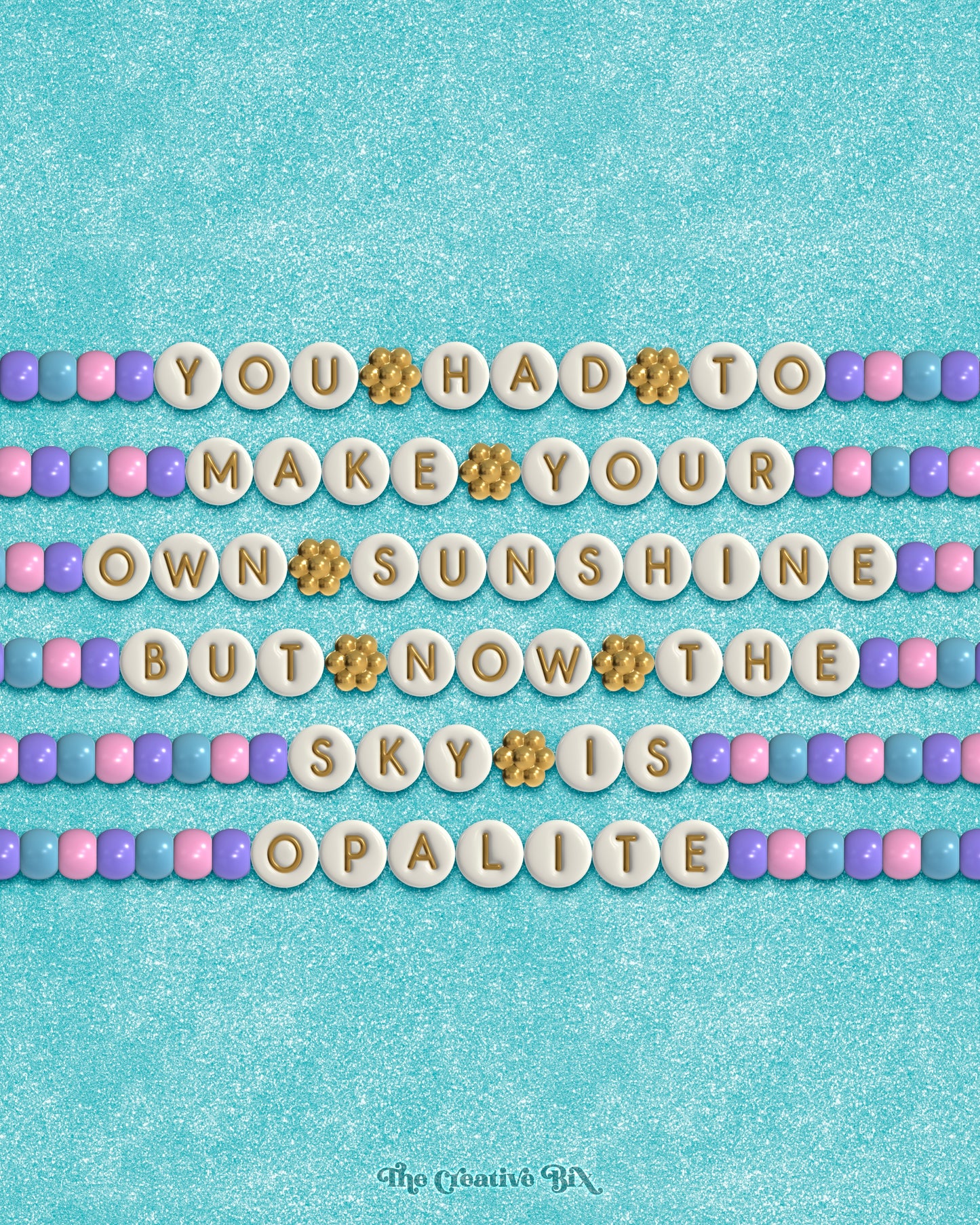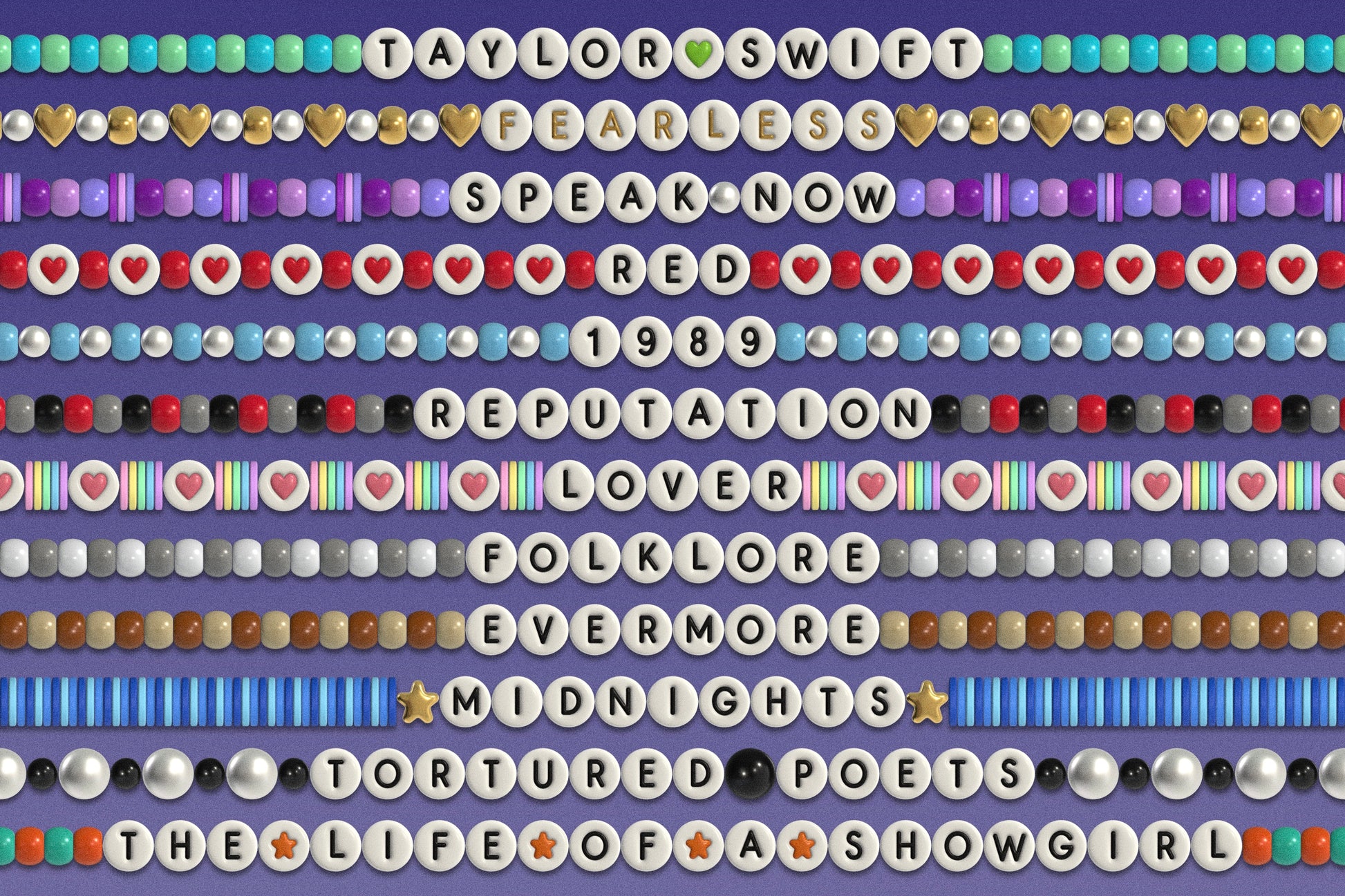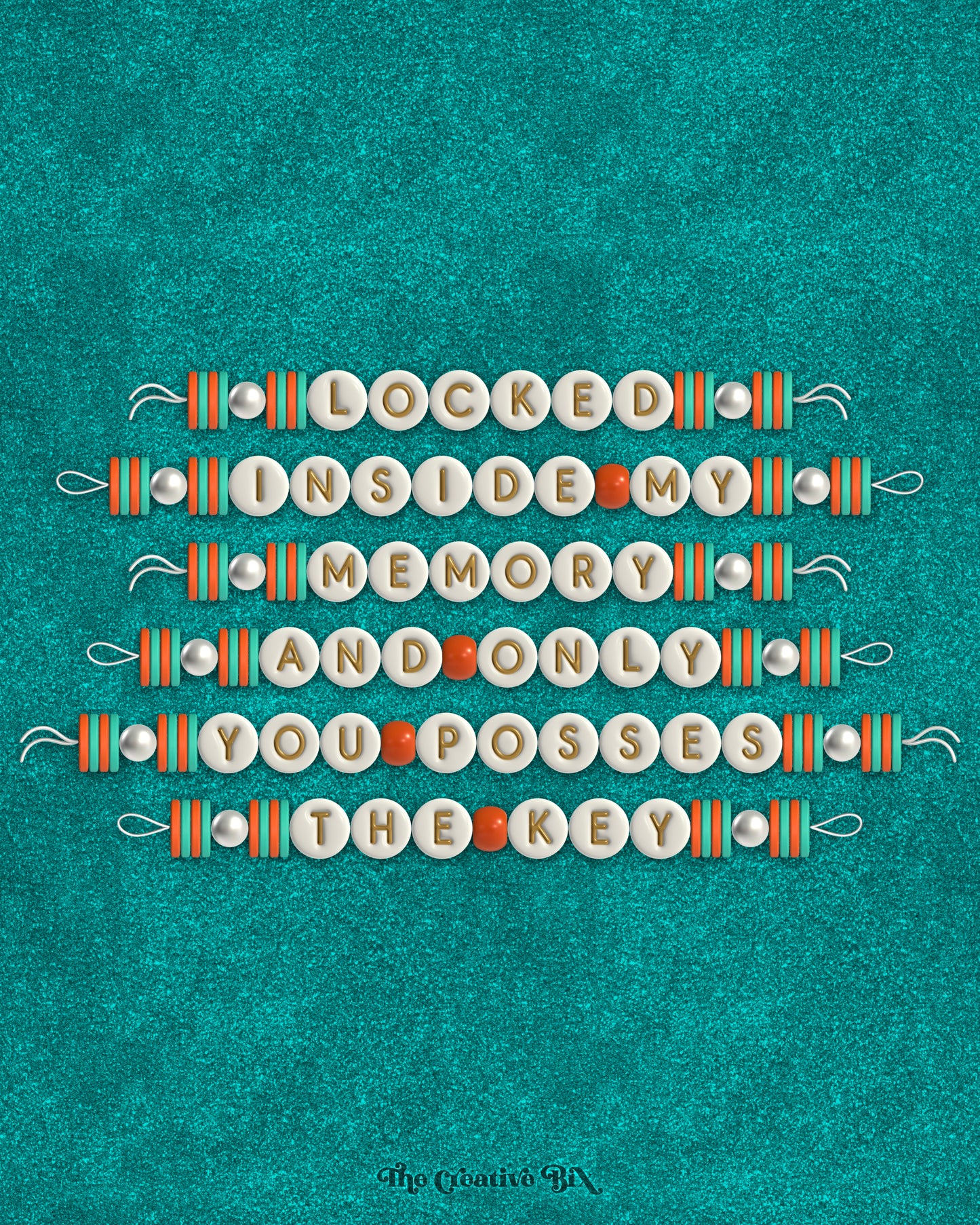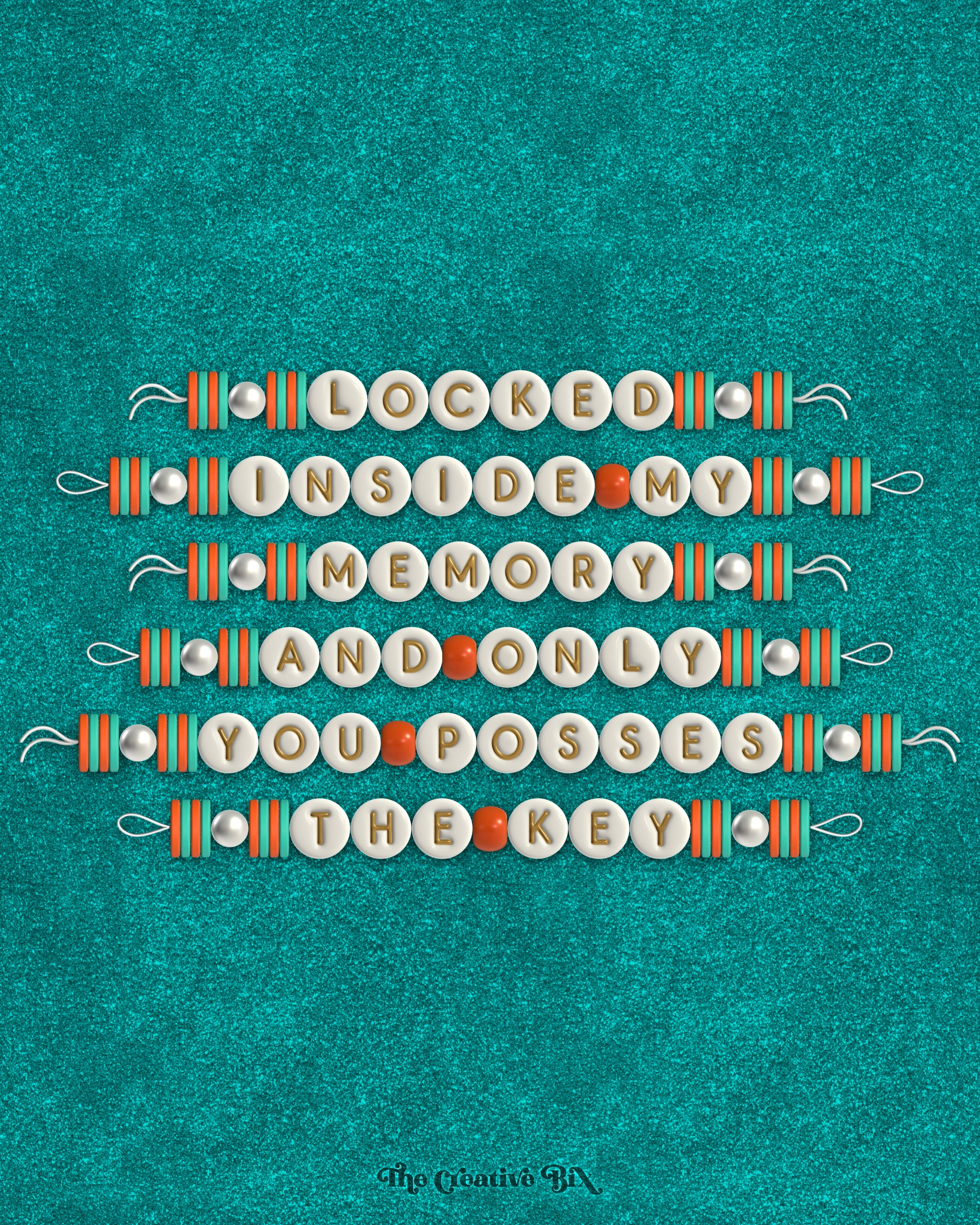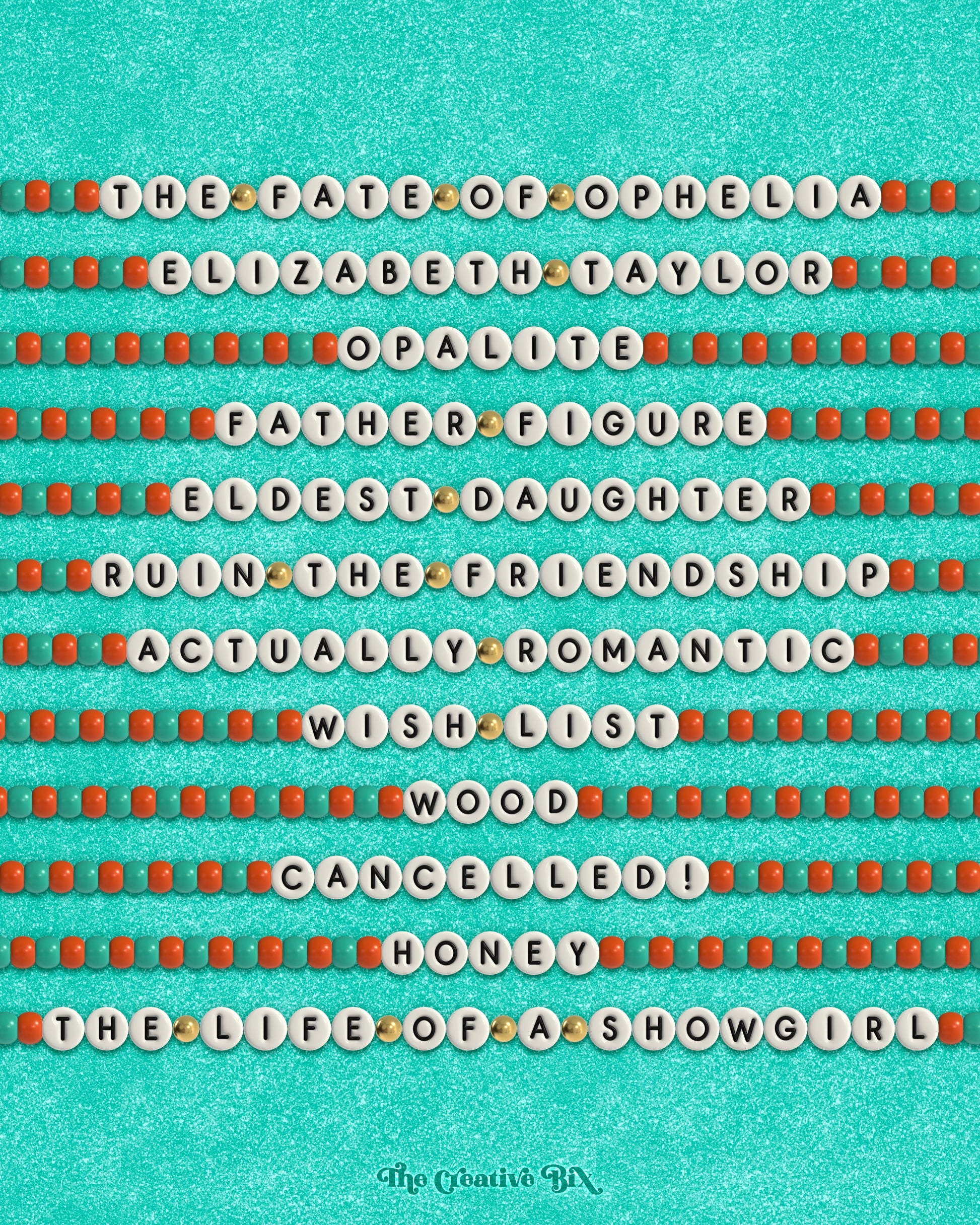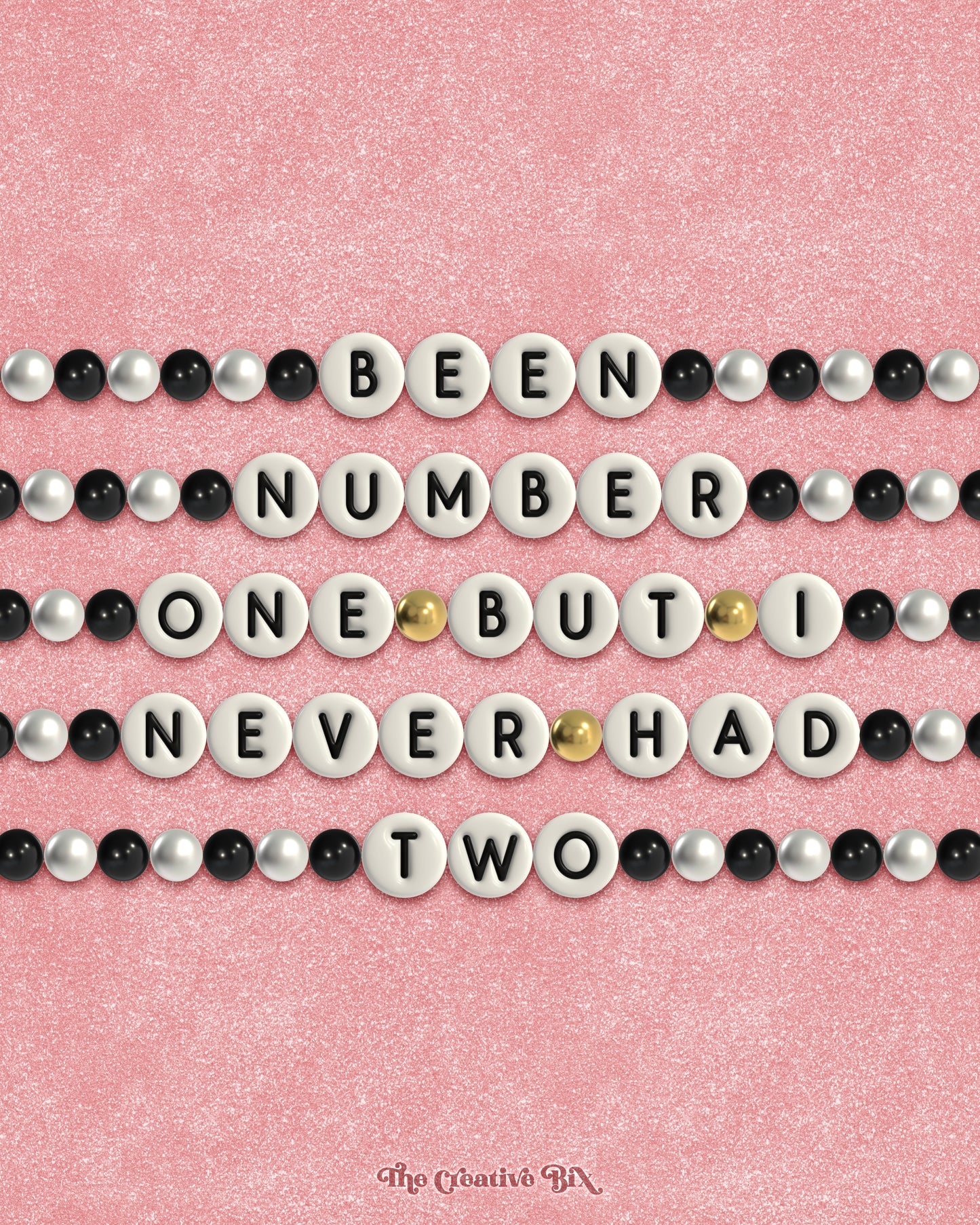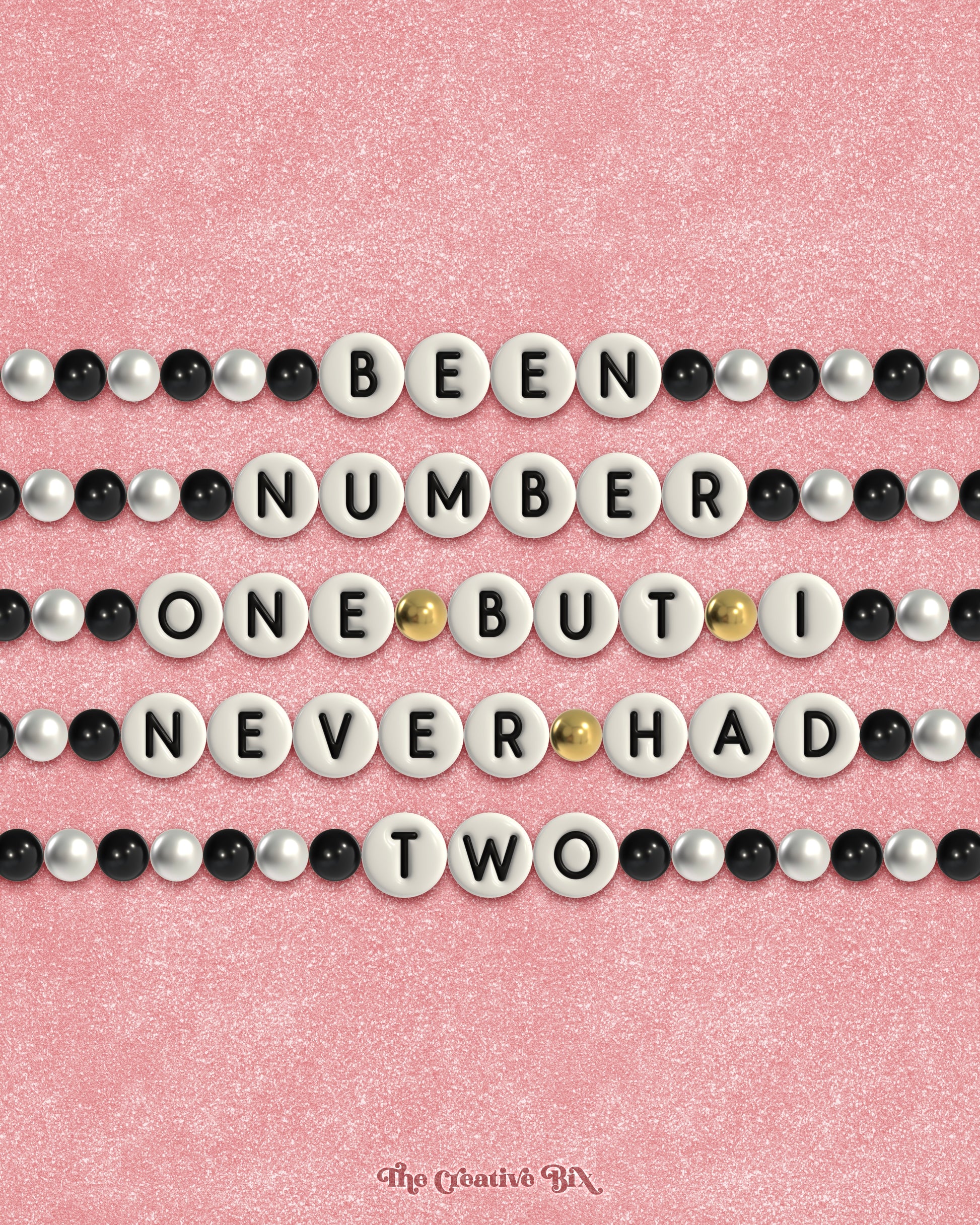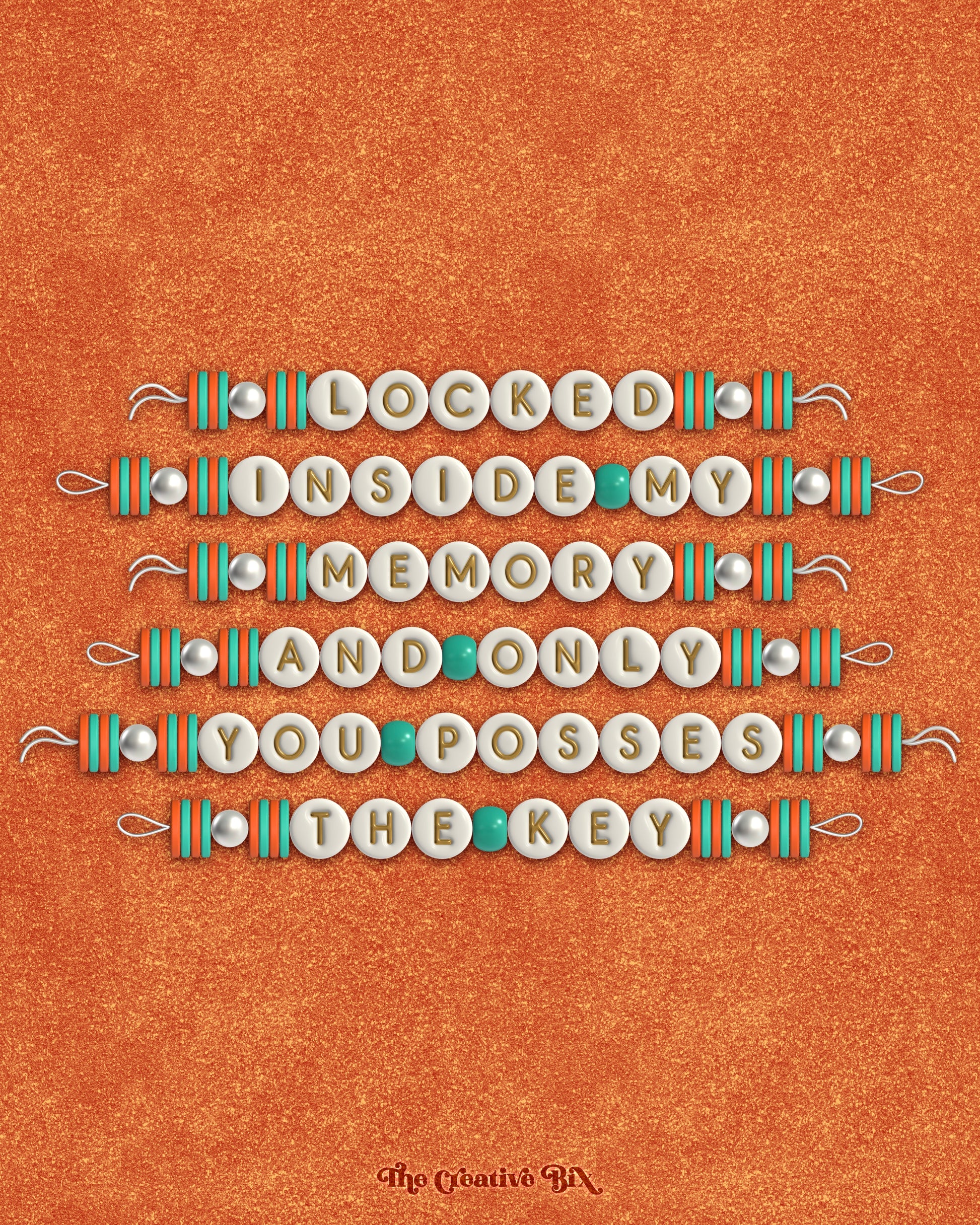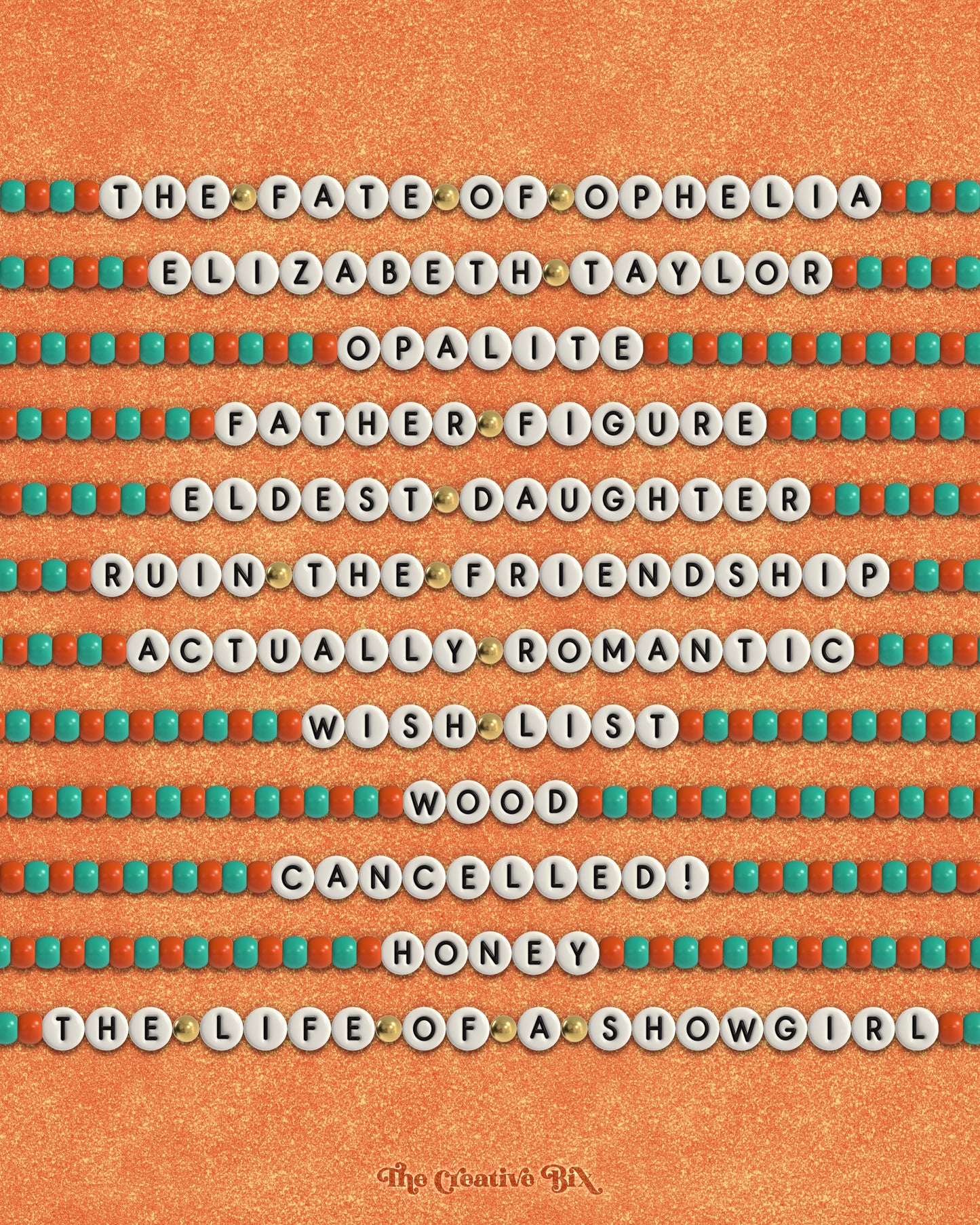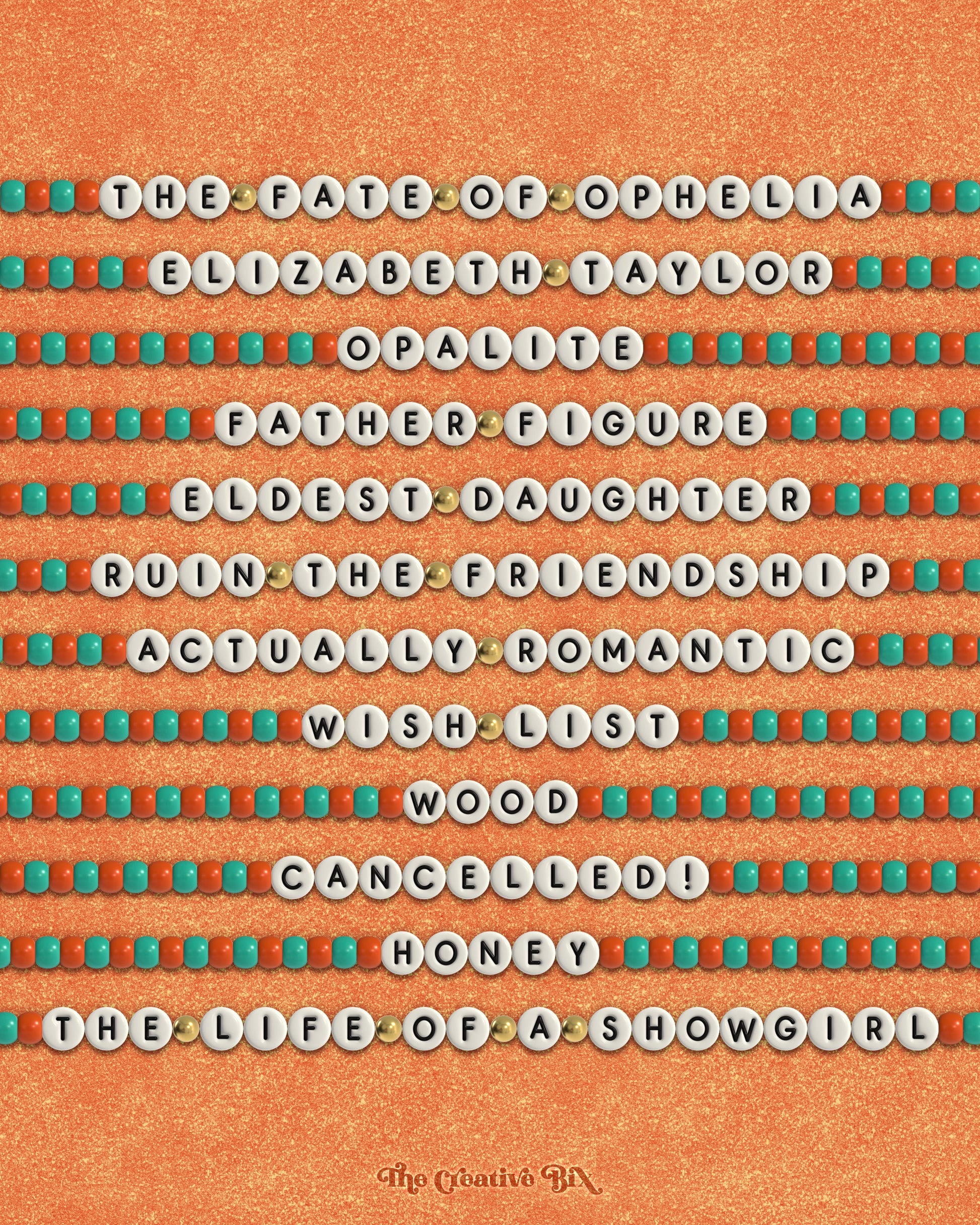
Friendship Bracelet 3D Font
Introducing the Friendship Bracelet font! This handmade color font is actually made up of 3 separate fonts: Classic Letters, Gold Letters, and the Color Beads. In total, this complete set of fonts comprise almost 200 3D rendered beads! Now you can save time, and with just a couple presses on the keyboard you’ll have a bracelet design in seconds! This would also be great for mocking up and planning future friendship bracelet designs!
For all the Swifties and non Swifties, this font is absolutely perfect for casual, playful designs on stickers, invitations, flyers, t-shirts, posters, children’s branding, magazines, and much more!